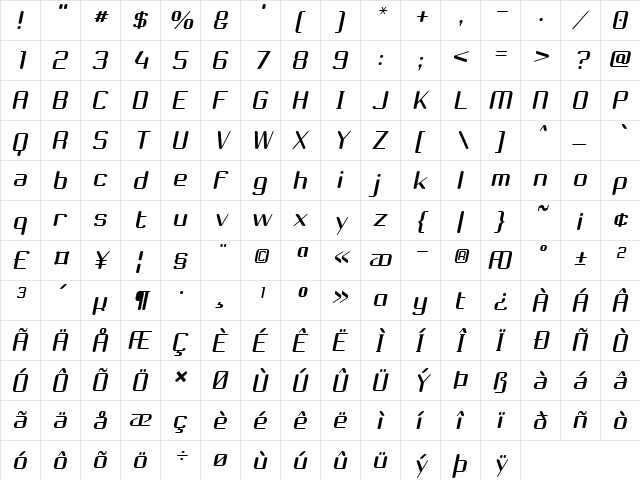
Choktoff Regular
Design Context for Choktoff Typeface
Choktoff offers clean, dependable letterforms without strong stylistic allegiance, making it a practical choice for designers who need flexibility.
Pro Tip: Use Choktoff in both headline and body roles to test its range before committing to a single application.